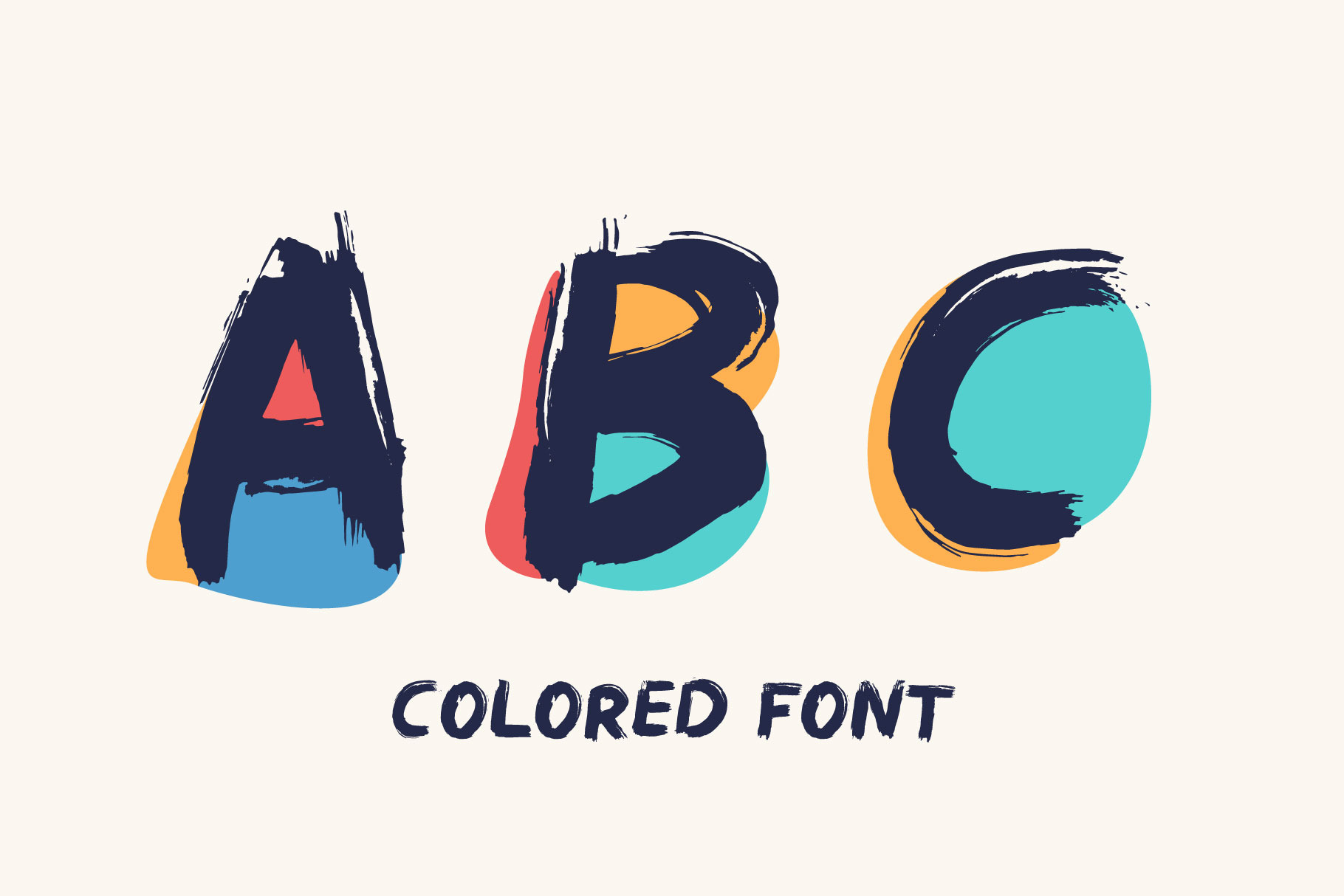
Dry Kids Brush Colored Font
Hello! Do you need a kid's style font for your lettering, invitations, or banners? Please try it. All the letters handwritten with dry brush and watercolor spots. Perfect for cartoon ads, festal poster, cute identity, etc.
- Uppercase (lowercase glyphs are same)
- Numbers and symbols